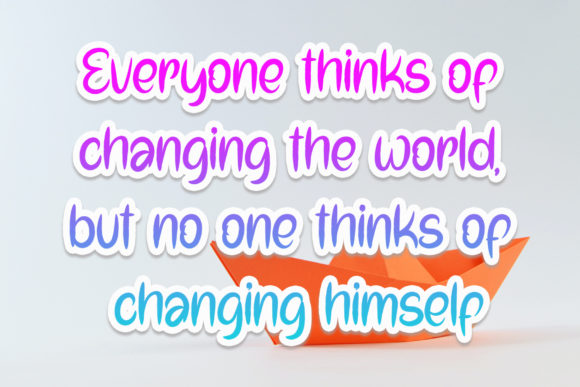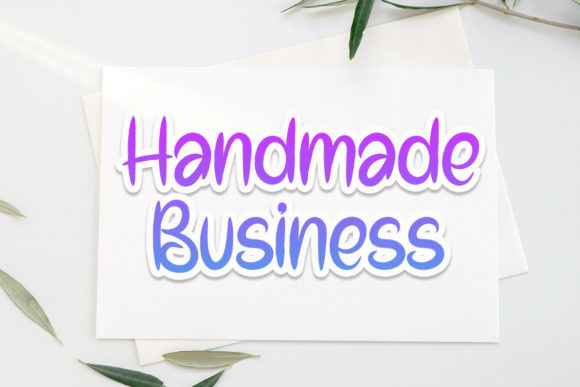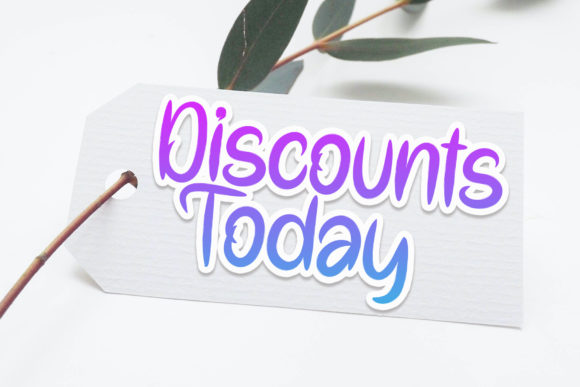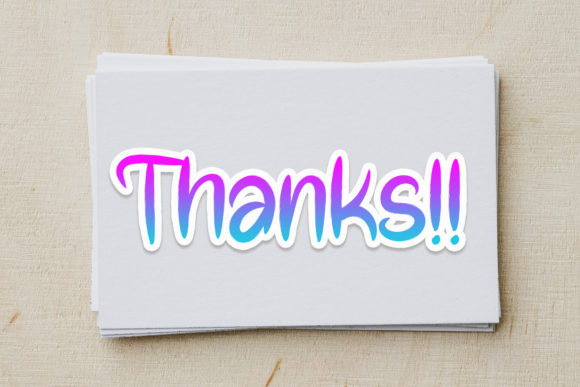
The Perfect Script: Unlocking the Magic of Bunny Fancy Font
Have you ever been scribbling away in a journal, lost in the flow of creativity, and suddenly, a perfect letter ‘q’ or a swooping ‘s’ appears on the page? It’s those magical moments that remind us why we love handwriting fonts. For designers, finding the perfect script can be a game-changer – it’s the difference between a bland design and a showstopper.
Enter Bunny Fancy Font, a clean, simple, and smart-looking handwriting font that’s perfect for weddings, branding, wall hangings, and more. With its elegant, flowing lines, it’s an ideal choice for designers looking to add a touch of whimsy and romance to their projects. Whether you’re designing a wedding invitation or a Valentine’s Day greeting, Bunny Fancy Font is sure to bring a smile to your client’s face.
Bunny Fancy Font Key Features
- Font Family: Bunny Fancy Font
- Unique Characteristics: Bunny Fancy Font features a whimsical, hand-drawn design with intricate details and a playful feel, making it ideal for children’s books, greeting cards, and other creative projects.
Bunny Fancy Font Review
Overall, I’m quite impressed with the Bunny Fancy Font! ✨ It’s a playful, whimsical font that’s perfect for adding a touch of magic to your designs. The curly lines and cute details make it a great choice for children’s books, greeting cards, and other projects where you want to convey a sense of wonder.
- ✨ The font is highly customizable, allowing you to adjust the size, color, and spacing to suit your design needs.
- ✨ The font is also incredibly versatile, working well for both digital and print projects.
- ✨ The designer has included a range of characters, including punctuation marks and numbers, making it easy to use in a variety of contexts.
That being said, there are a few limitations to keep in mind: ⚠️ The font may not be the best choice for projects where a more formal or professional tone is required. Additionally, some users may find the font’s whimsical nature to be distracting or overwhelming.
Overall, I’d say that the Bunny Fancy Font is a great addition to any designer’s toolkit. With its customization options, versatility, and cute details, it’s perfect for adding a touch of magic to your designs. Just be mindful of the font’s limitations and use it judiciously to get the best results.
Tips for Getting the Most Out of Bunny Fancy Font
To get the most out of Bunny Fancy Font, try using it for whimsical and playful designs, such as:
- Party invitations
- Food labels
Remember to experiment with different font sizes and combinations to achieve the desired effect.